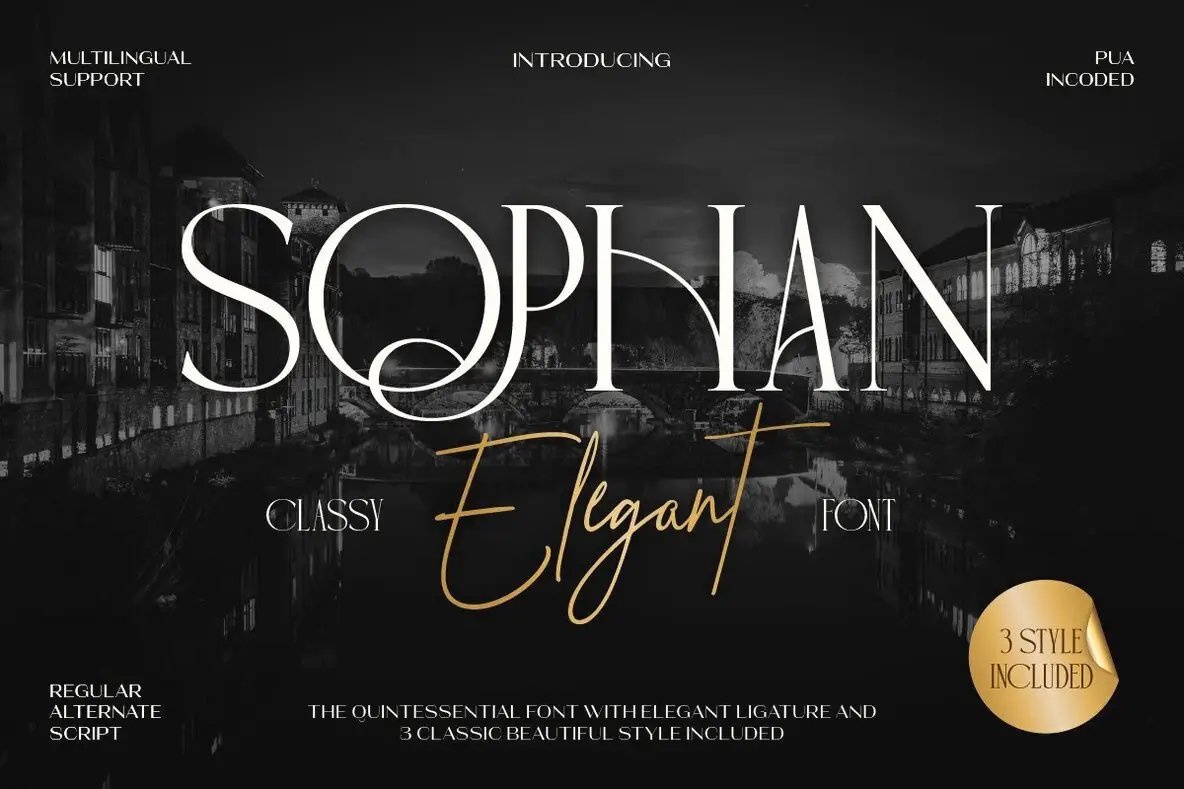
Sophan Elegant Font
Sophan Elegant Regular
Sophan Elegant Alternate
Sophan Elegant Script
Sophan Elegant embodies a refined balance of classic sophistication and modern grace, offering a luxurious touch to your typographic projects. Designed with exquisite ligatures and smooth curves, this typeface captures the essence of elegance in every word formed. This font family encompasses three distinct styles—Regular, Alternate, and Script—making it perfect for high-end branding, editorial design, logo creation, and sophisticated packaging. Its delicate serifs and graceful letterforms borrow from the charm of classic European typography, infused with a contemporary flair. Ideal for use in fashion magazines or boutique branding, Sophan Elegant infuses your design projects with understated class and a definitive style.Sophan Elegant: Timeless Typeface for Modern Design